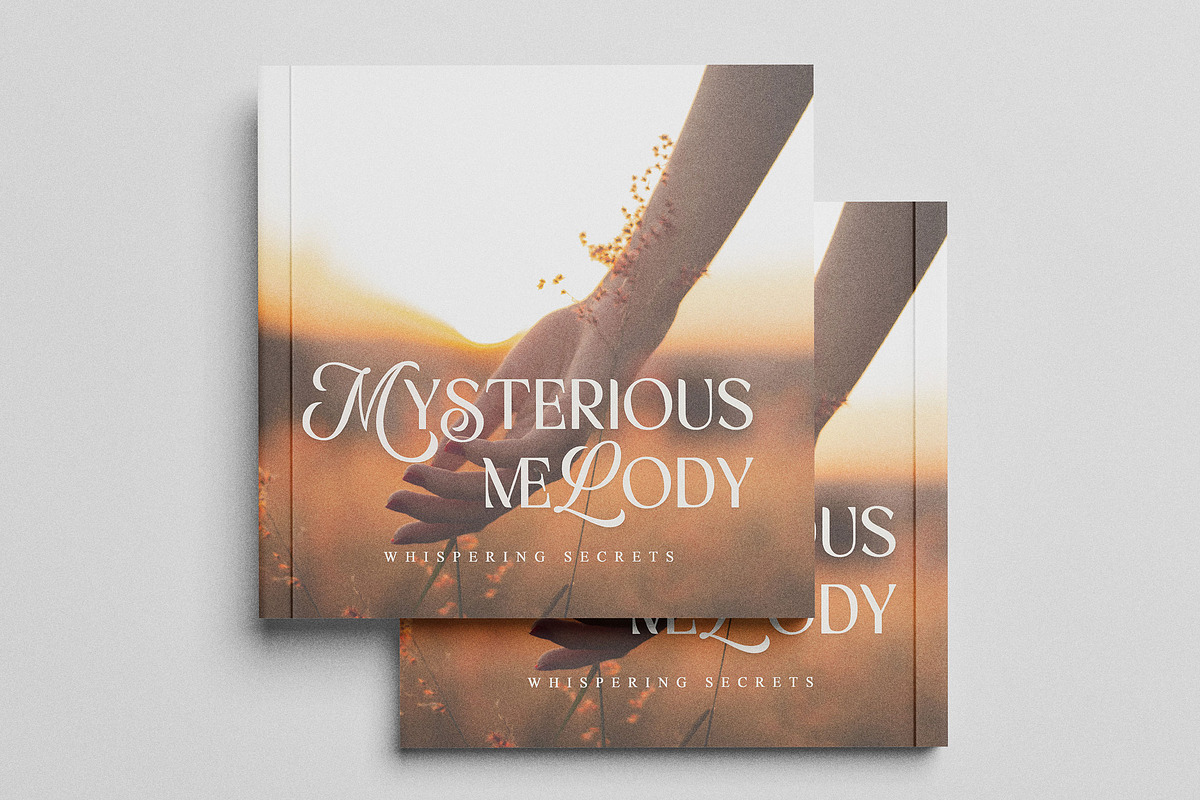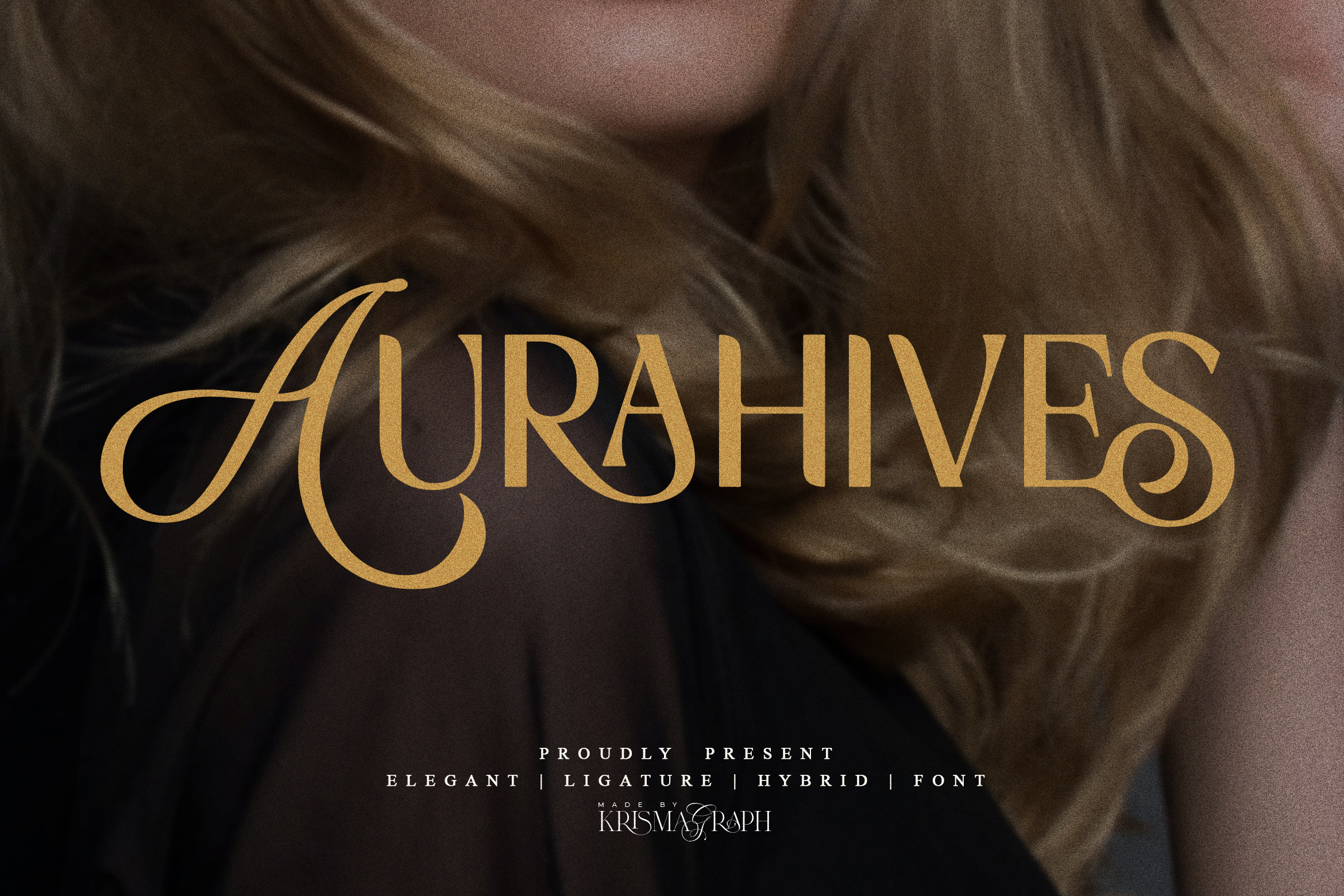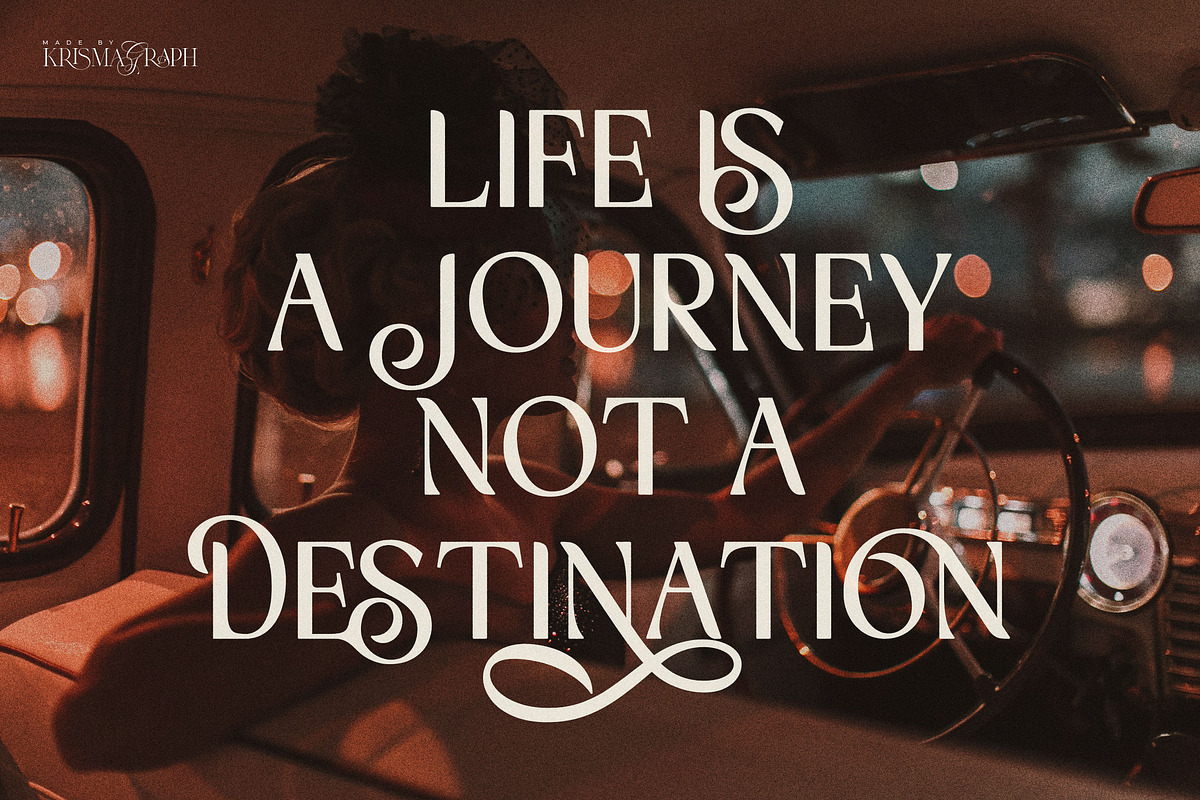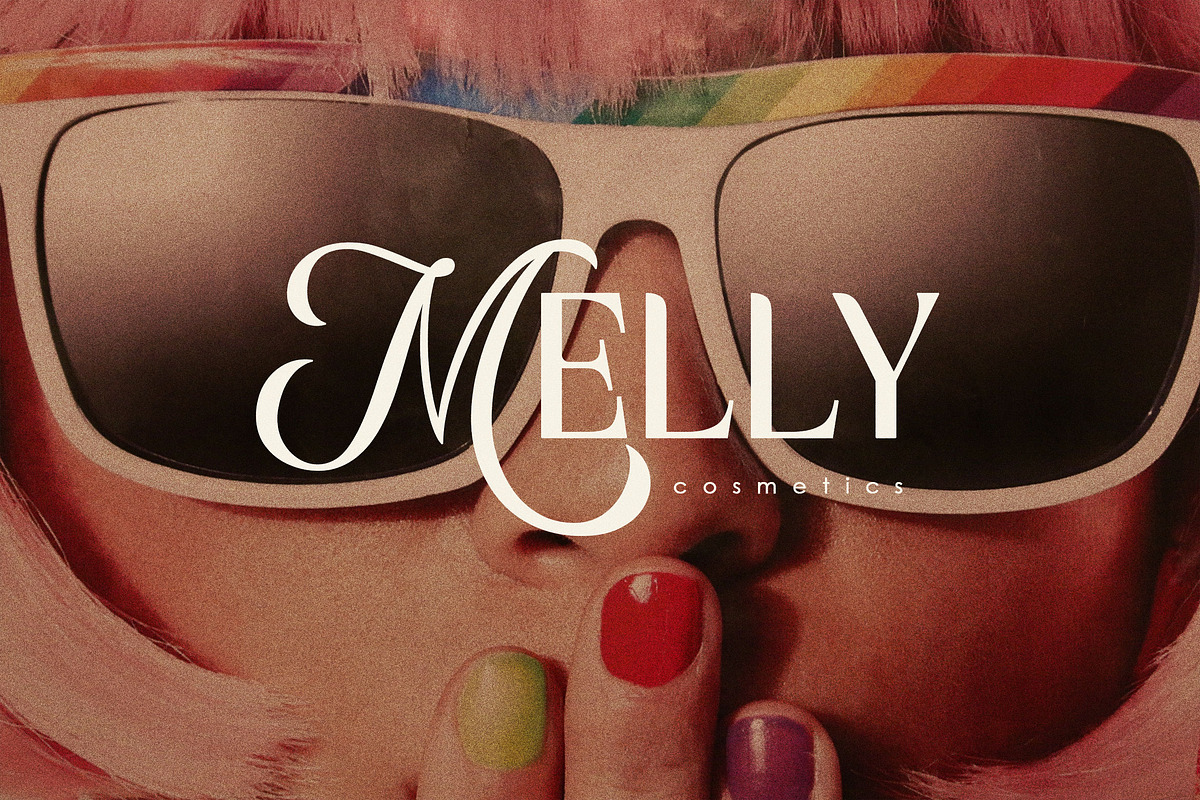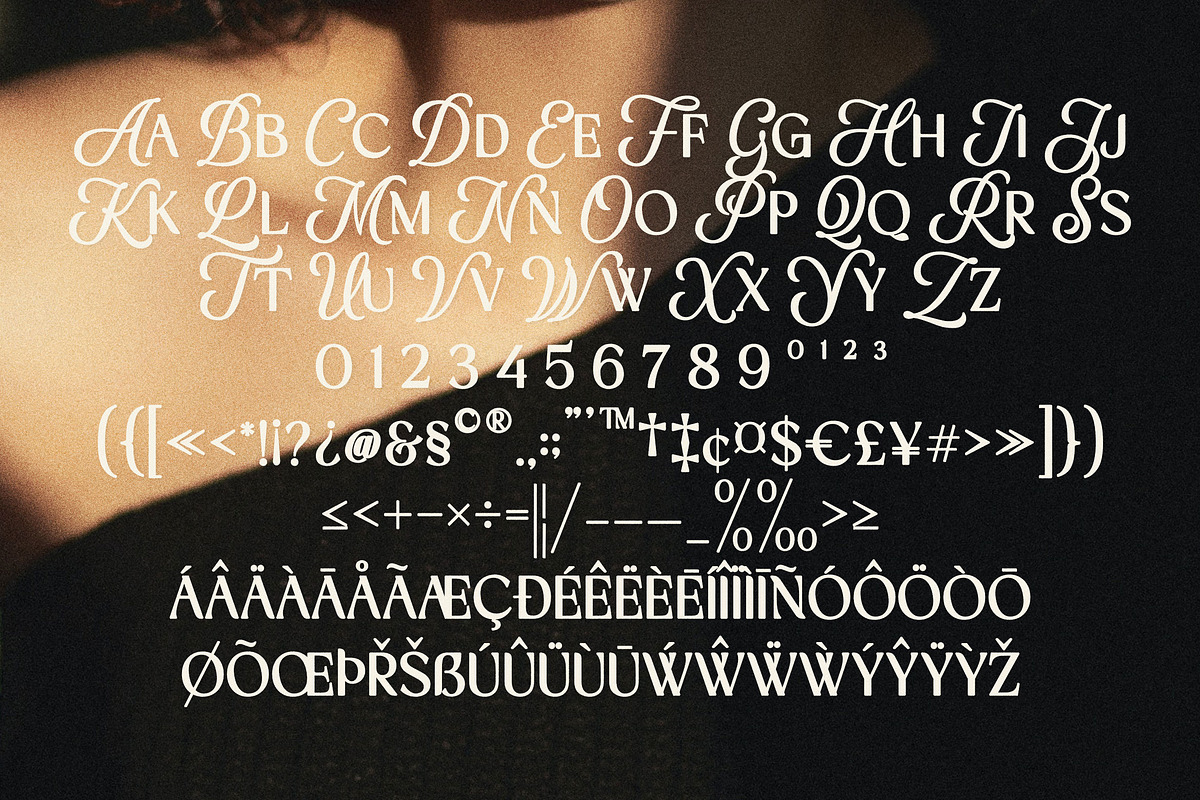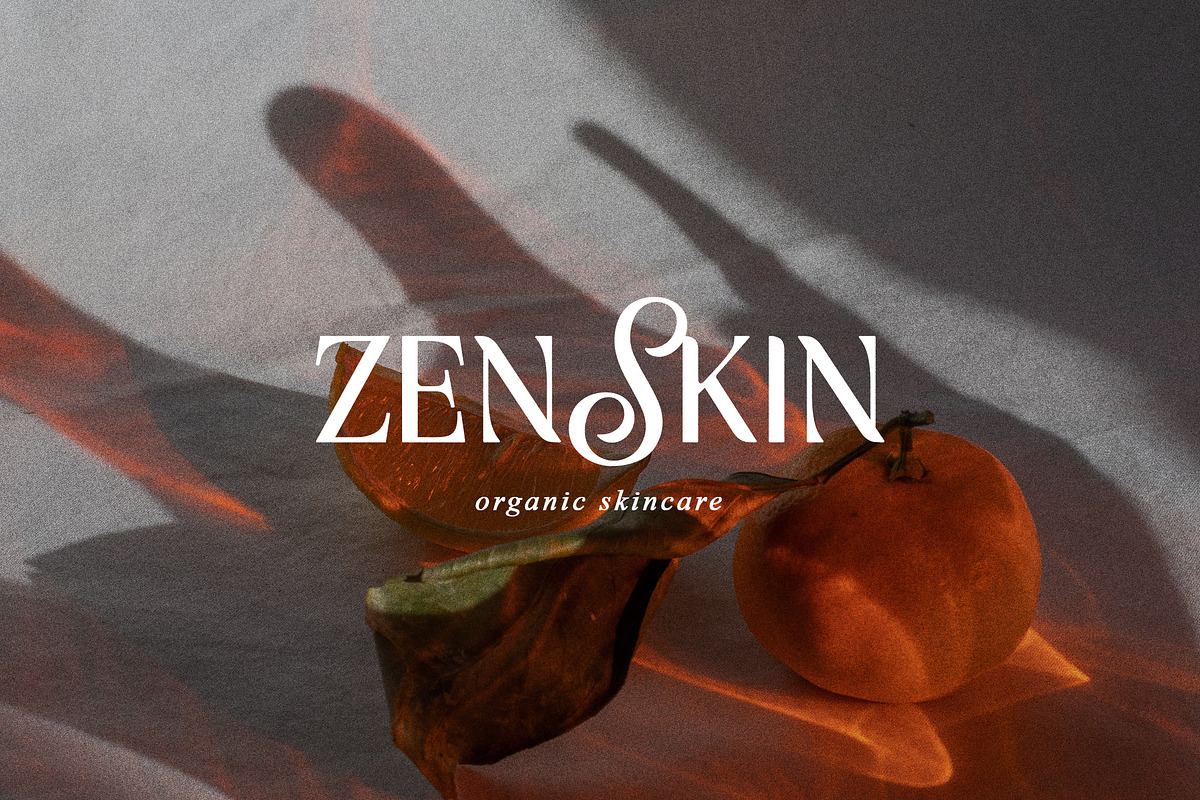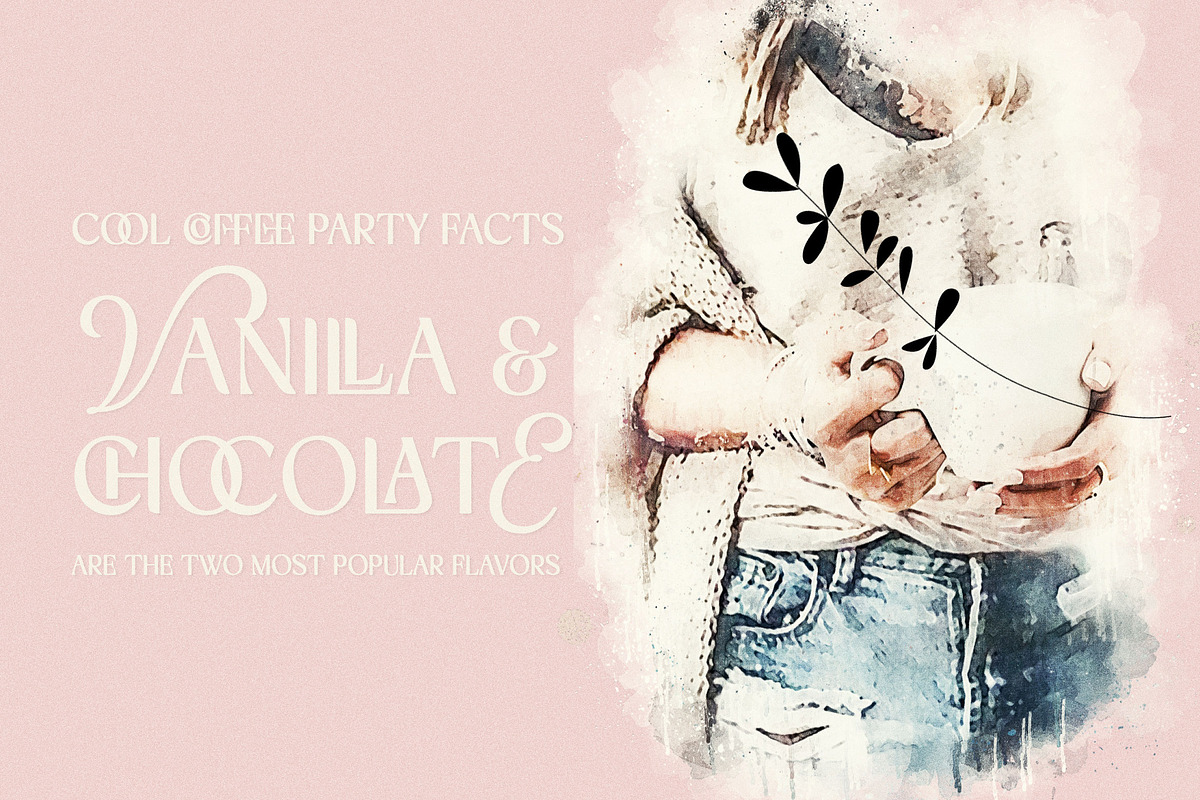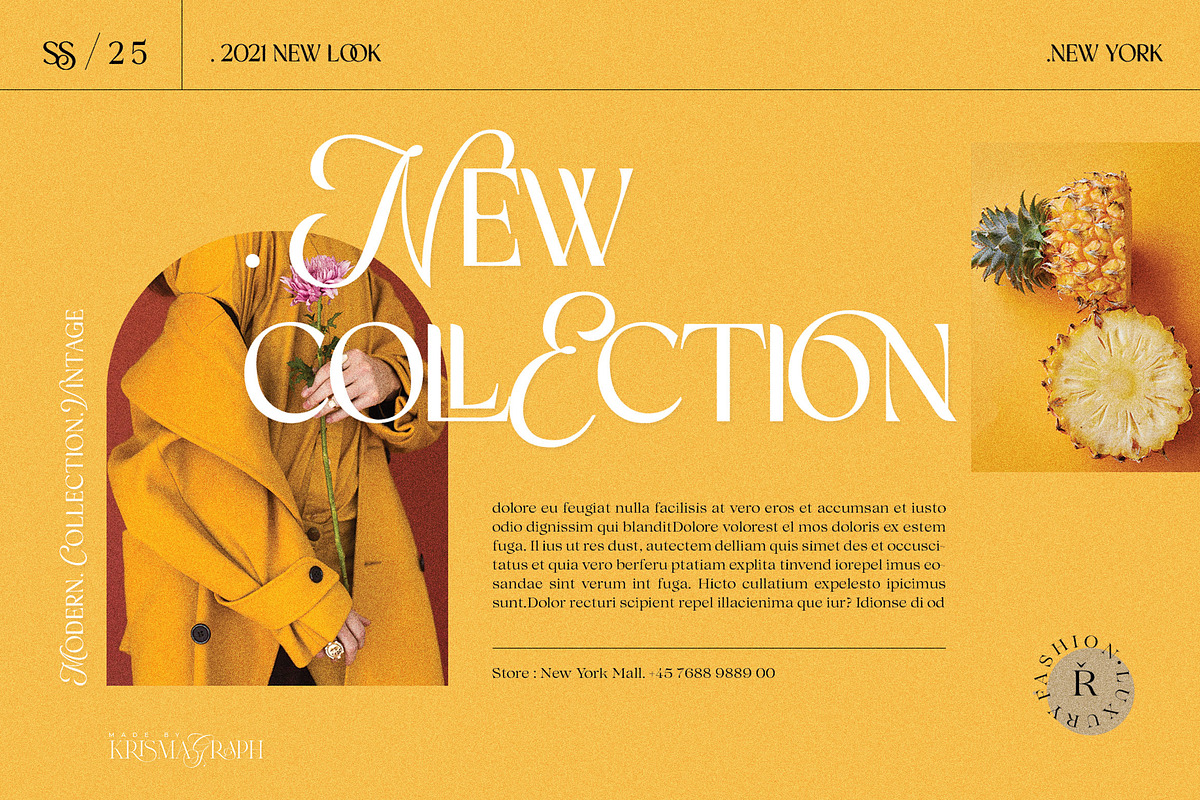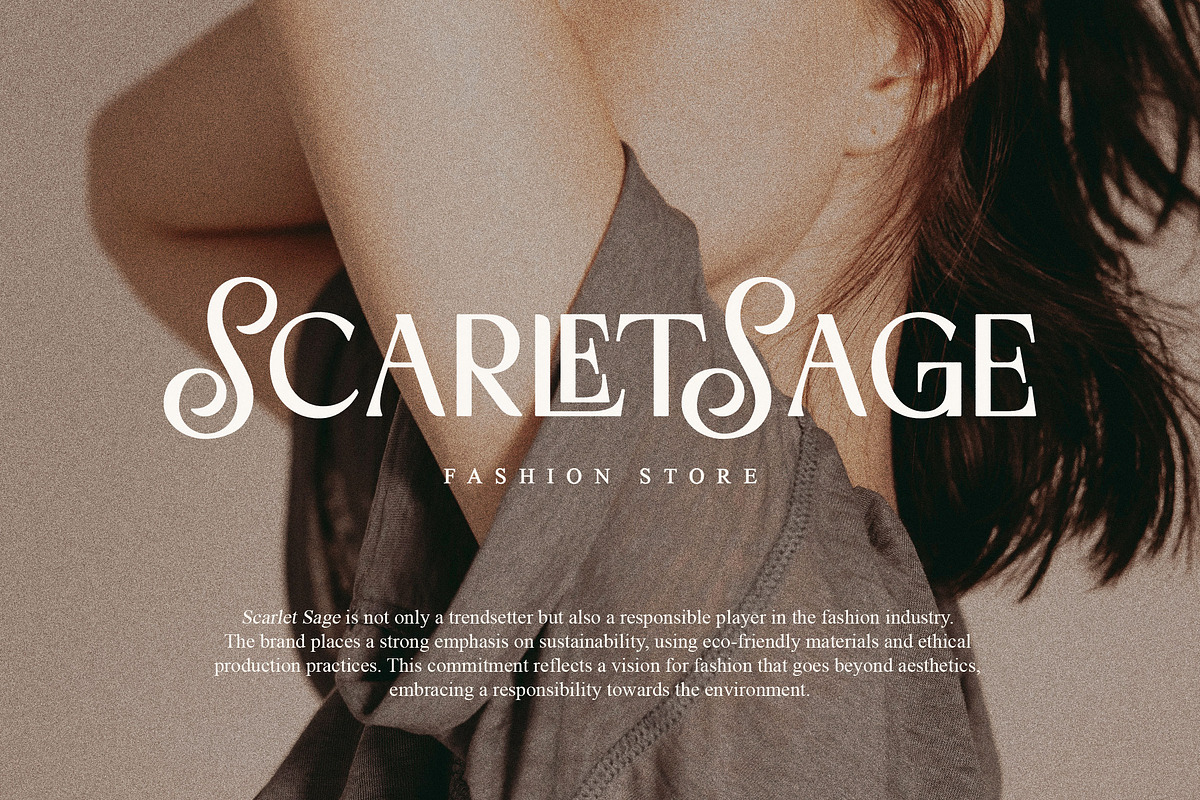
Aurahives | Hybrid Ligature Font
Aurahives is a beautiful hybrid font, mix of calligraphy as uppercase and san serif as lowercase, with 42 unique ligatures and 24 alternates. Giving you a versatile set of fonts which can be used & loved across a range of design projects.
Aurahives is made mainly for headlines, titles, and other short texts and is well-suited for advertising, vintage mood boards, branding, logotypes, packaging, titles, editorial design, modern logos, websites, social media quotes, wedding branding, modern and vintage design.